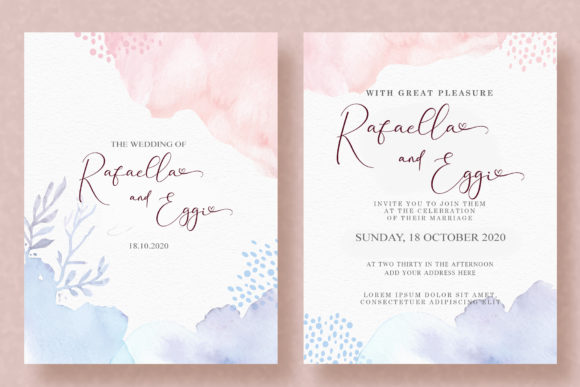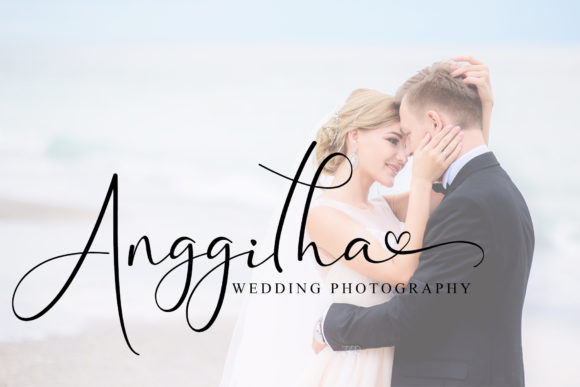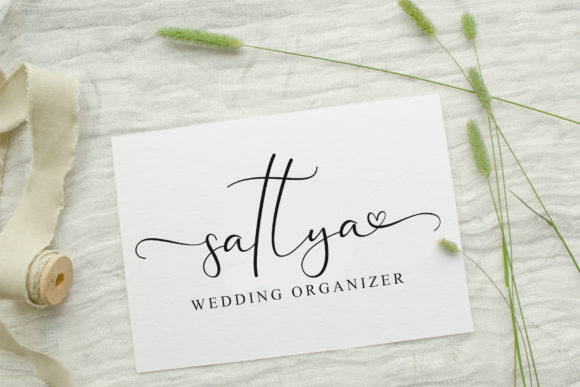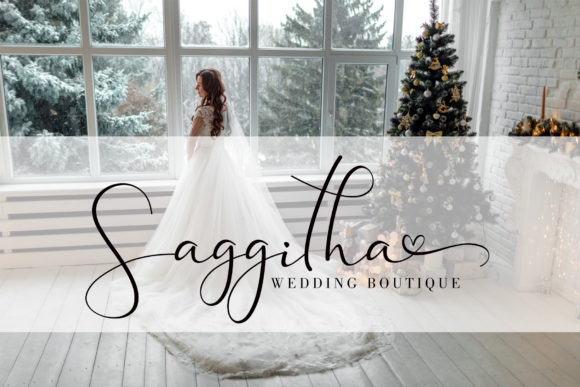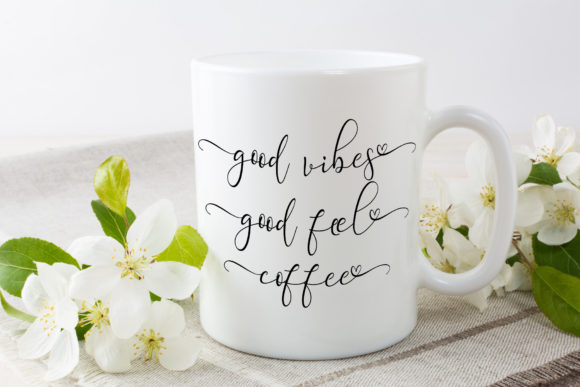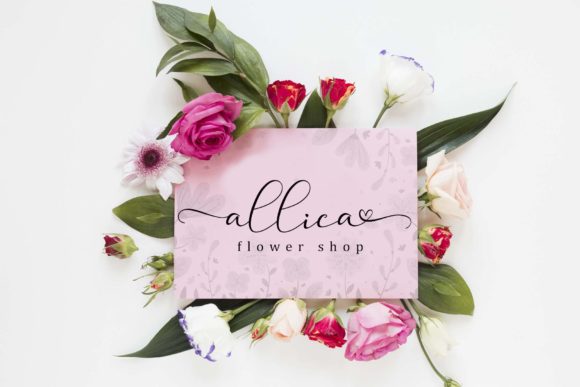
The Perfect Script: Abiggail Font
As a designer, have you ever stumbled upon a beautiful font that makes you feel like you’re holding a brush in your hand, not a mouse? I know I have. For me, it was the moment I discovered the Abiggail Font – a sweet, elegant script that transports me to a world of handwritten charm. Its beautiful swashes and ligatures are a designer’s dream come true.
Abiggail Font is more than just a pretty face; it’s a versatile tool for adding a personal touch to any design. Whether it’s a wedding invitation, a thank you card, or a business logo, this font brings a level of sophistication and warmth that’s hard to find. Its value lies in its ability to convey emotions and tell stories through typography, making it a must-have for any designer looking to elevate their work.
Abigail Font Key Features
- Unique Characteristics: Abigail Font features a unique blend of elegance and sophistication, with intricate details and subtle flourishes that set it apart from other fonts.
Designer Review: Abigail Font
As a designer, I’ve had the chance to play around with the Abigail font, and I must say it’s a mixed bag. Here are my thoughts:
- The Abigail font has a unique, elegant feel to it. It’s perfect for projects that need a touch of sophistication.
- The font is highly legible, even at smaller font sizes, which is a must-have for any good font.
- The Abigail font comes in a variety of weights, making it easy to find the perfect one for your project.
- The Abigail font can feel a bit too ornate for some projects. It’s not the best choice for projects that need a clean, minimal look.
- The font can be a bit difficult to read in certain contexts, such as on low-resolution screens or in small font sizes.
- The Abigail font doesn’t come with as many language support options as some other fonts, which can be a limitation for global projects.
In the end, the Abigail font is a solid choice for projects that need a touch of elegance and sophistication. While it may not be the best choice for every project, it’s definitely worth considering for the right type of job. With a bit of creative restraint and attention to context, the Abigail font can be a real showstopper.
Tips for Getting the Most Out of Abigail Font
Abigail Font is a versatile font that works well for a variety of applications, including:
Headings and titles
Body text
Logos and branding
Abigail Font is commonly used for:
Blog and website headers